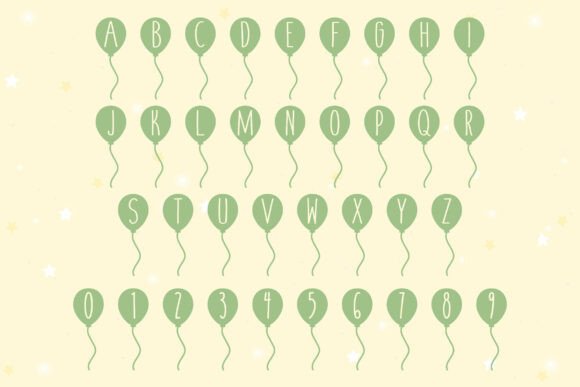
Introducing Balloon Font: The Playful and Whimsical Typeface for Kids and Celebrations
Are you looking for a font that can add a touch of fun and playfulness to your designs? Look no further than Balloon Font! This delightful typeface features letters styled like air-filled balloons, complete with a letter inside each one. The rounded shapes and cheerful look of Balloon Font create a light and joyful feeling that’s perfect for a variety of celebrations and projects.
What is Balloon Font?
Balloon Font is a unique and imaginative typeface designed specifically for kids and celebrations. Each letter is carefully crafted to resemble an air-filled balloon, complete with a letter inside. The font’s playful design makes it ideal for a range of applications, from birthday invitations and baby shower cards to “save the date” announcements and more.
Key Features of Balloon Font
- Playful and whimsical design: Each letter is styled like an air-filled balloon, complete with a letter inside.
- Rounded shapes and cheerful look: The font’s rounded shapes and bright, cheerful design create a light and joyful feeling.
- Perfect for kids and celebrations: Balloon Font is ideal for birthday invitations, baby shower cards, “save the date” announcements, and more.
- Easy to read and fun to use: Despite its playful design, Balloon Font is easy to read and fun to use in a variety of projects.
Uses for Balloon Font
Balloon Font is a versatile typeface that can be used in a variety of creative projects. Here are some ideas to get you started:
- Birthday invitations: Create custom birthday invitations that are as fun and playful as the celebration itself.
- Baby shower cards: Add a touch of whimsy and delight to baby shower cards and invitations.
- “Save the date” announcements: Make your “save the date” announcements stand out with a playful and eye-catching font.
- Kids’ party decorations: Use Balloon Font to create custom banners, signs, and other decorations for kids’ parties.
- DIY crafts and projects: Add a personal touch to your DIY crafts and projects with Balloon Font.
Why Designers and Crafters Love Balloon Font
Designers and crafters love Balloon Font for its unique and playful design. Here are some reasons why:
- Unique and eye-catching: Balloon Font is a one-of-a-kind typeface that adds a touch of whimsy and delight to any project.
- Easy to use: Despite its playful design, Balloon Font is easy to use and works well in a variety of projects.
- Perfect for kids and celebrations: Balloon Font is ideal for projects that require a fun and playful touch.
- Customizable: Use Balloon Font to create custom designs and projects that reflect your personal style.
Tips for Using Balloon Font
Here are some tips for using Balloon Font in your designs:
- Keep it simple: Use Balloon Font in simple and straightforward designs to let the font shine.
- Experiment with colors: Try out different colors and color combinations to add depth and interest to your designs.
- Mix and match: Combine Balloon Font with other fonts and design elements to create unique and eye-catching designs.
- Have fun: Most importantly, have fun and be creative with Balloon Font!
In conclusion, Balloon Font is a fun and playful typeface that’s perfect for kids and celebrations. Its unique and eye-catching design makes it ideal for a range of creative projects, from birthday invitations and baby shower cards to “save the date” announcements and more. Whether you’re a designer or crafter, Balloon Font is sure to add a touch of whimsy and delight to your designs.